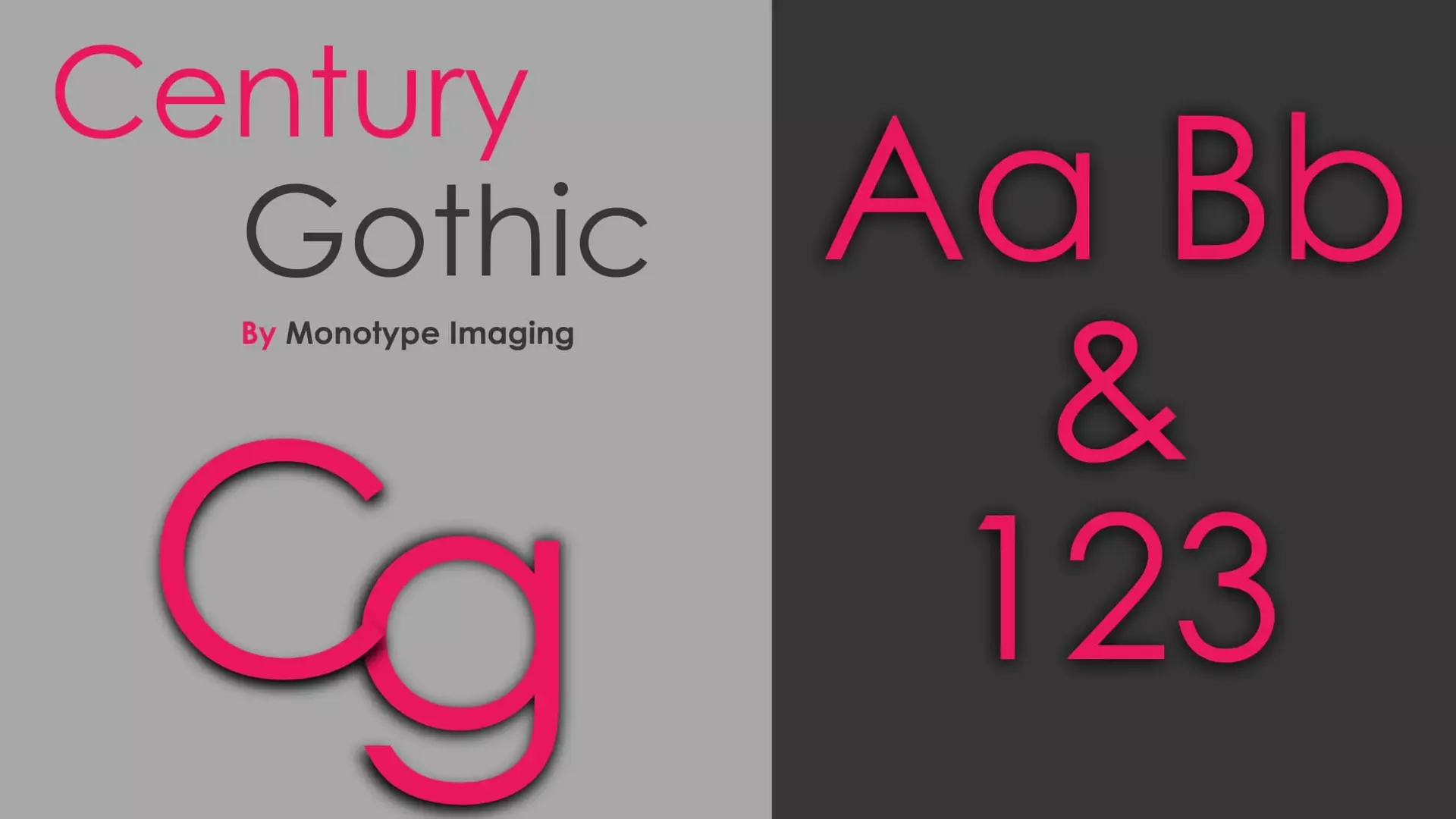
About Century Gothic Font
Century Gothic is a sans-serif typeface with a geometric design that was released through Monotype Imaging in 1991. After it was made accessible to the public It became everyone’s priority and began to be used all over the world. It’s strongly inspired by the font Futura however, it has an increased size x-height. The design is also derived from two other fonts which were developed to be competitive with Futura. Due to its large X-height it delivers the most effective results for modern Digital systems. Century Gothic font is one of the fonts that is widely utilized and is highly recommended for various reasons. You can download the free Century Gothic font right from here.
Like other geometric sans-serifs Century Gothic’s style has one-story “a” and “g” and the “M” with slanting sides which resembles an upside-down “W”. Century Gothic has a high height x-height (tall lowercase letters). Its roots (see below) originate from a style designed for large-print applications such as signs and headings which is why it features an almost entirely geometric style closely based on the circles and square, but with lesser variation of stroke size than other fonts made for smaller sizes usually display, and a comparatively thin design when it is at it’s default size.
Usage of Century Gothic
It is a well-known font to use in advertisements, especially when headlines or small quantities of text are required. Due to its clean and clear appearance The Century Gothic design can often be seen in the classroom and in teaching languages.
Century Gothic is often used on film posters. It’s also the principal typeface used in headlines for shows like House as well as The Ellen Degeneres Show. Since the font is high x-height and a consistent weight, it’s easy to read on screens. The majority of readers are able to see the font on screen. However, some people with eyesight problems may have difficulty reading the font. It’s not as heavy as other fonts that are designed for use on screens. Certain print materials for movies and television shows like Glee, make use of the simple style and simplicity of Century Gothic to put the attention on the big and short words. Star Trek: Enterprise also employs this font quite little. Century Gothic works particular well for these titles that are short.
Fonts Similar to Century Gothic
Font Combination
Century Gothic + PT Serif
Selecting the best typeface for your can be a challenge and confusing. Selecting the wrong type of font can send an untrue message or feeling and ruin the design. Century Gothic is a sans-serif font. It works well when combined with Le Havre, Glegoo, Proxima Nova, Benton Sans RE, Adobe Caslon, Minion, Siri, Helvetica Neue, Clarendon and Brandon Grotesque. However, I would suggest to utilize PT Serif as a combination of Century Gothic. A strong serif and sans serif combo These two fonts are classic and are a great match. For big text (heading/sub-heading) use Century Gothic and for small text PT Serif is the best. PT Serif is an excellent serif typeface that always manages to perform well as paragraph text.
Is Century Gothic A good font?
Century Gothic font is one of the fonts that is widely utilized and is highly recommended for various reasons. It is a great font.